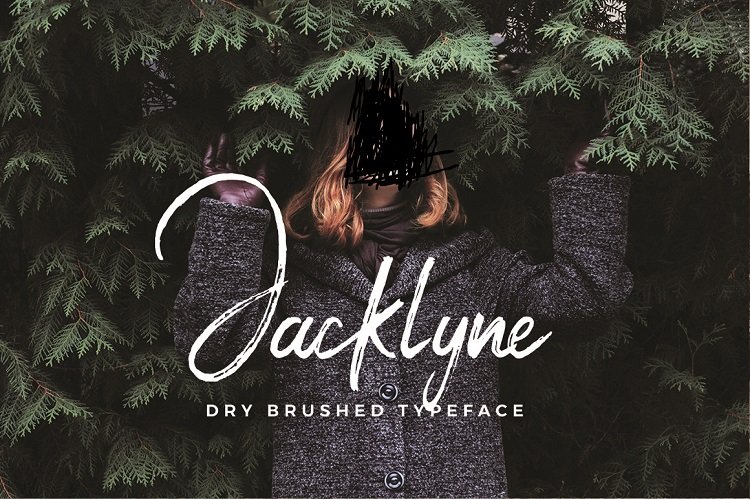
Jacklyne Brush Font
Hi friends! Will be a subtle and sweet font brush, If you are going to use a brush, this is it. Introducing Jacklyne. It is was designed and shares by hustletter. Jacklyne is a dry hand-lettering script font with a clear style and dramatic movement this font is great for your next creative project such as logos, printed quotes, invitations, cards, product packaging, headers, Logotype, Letterhead, Poster, Apparel Design, Label, and etc.